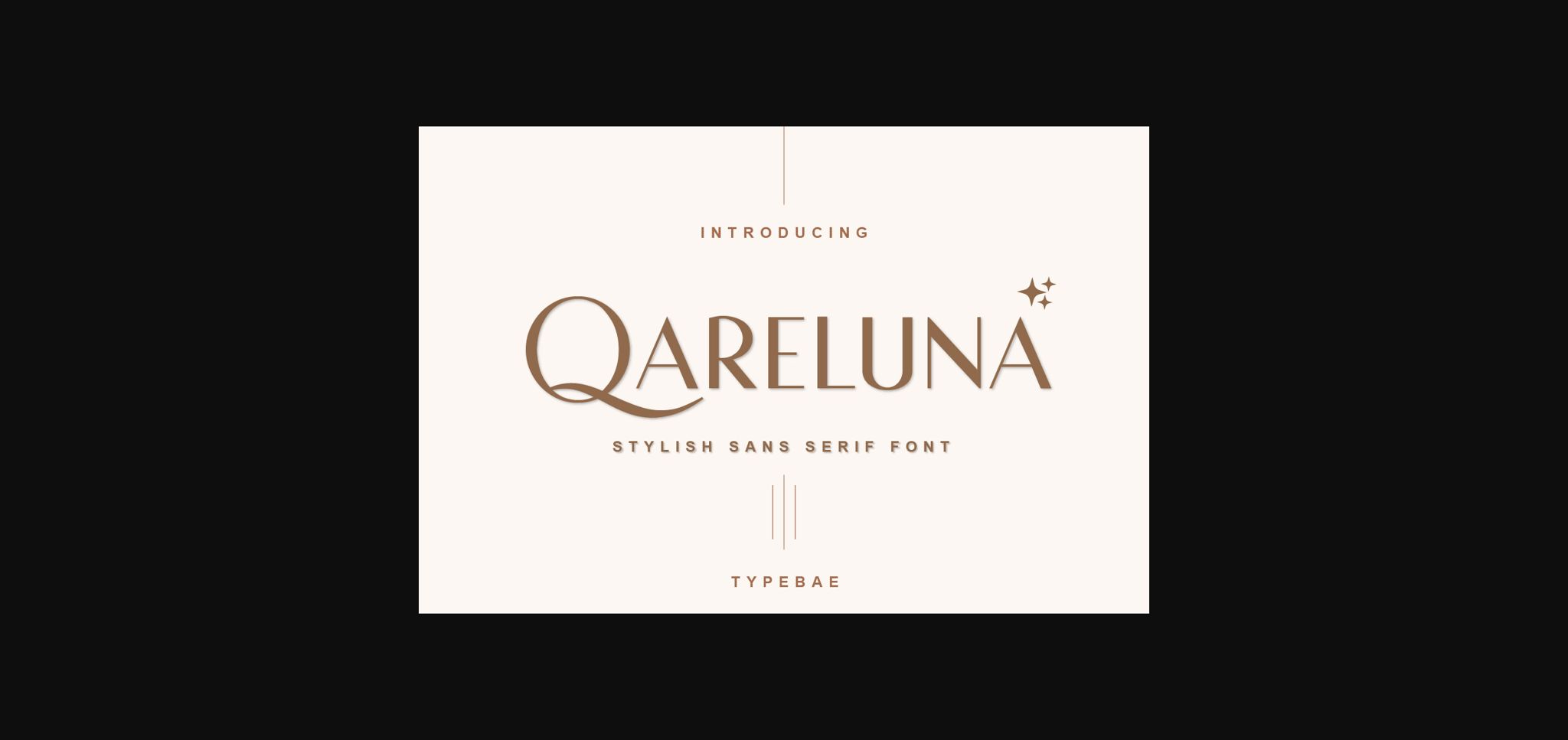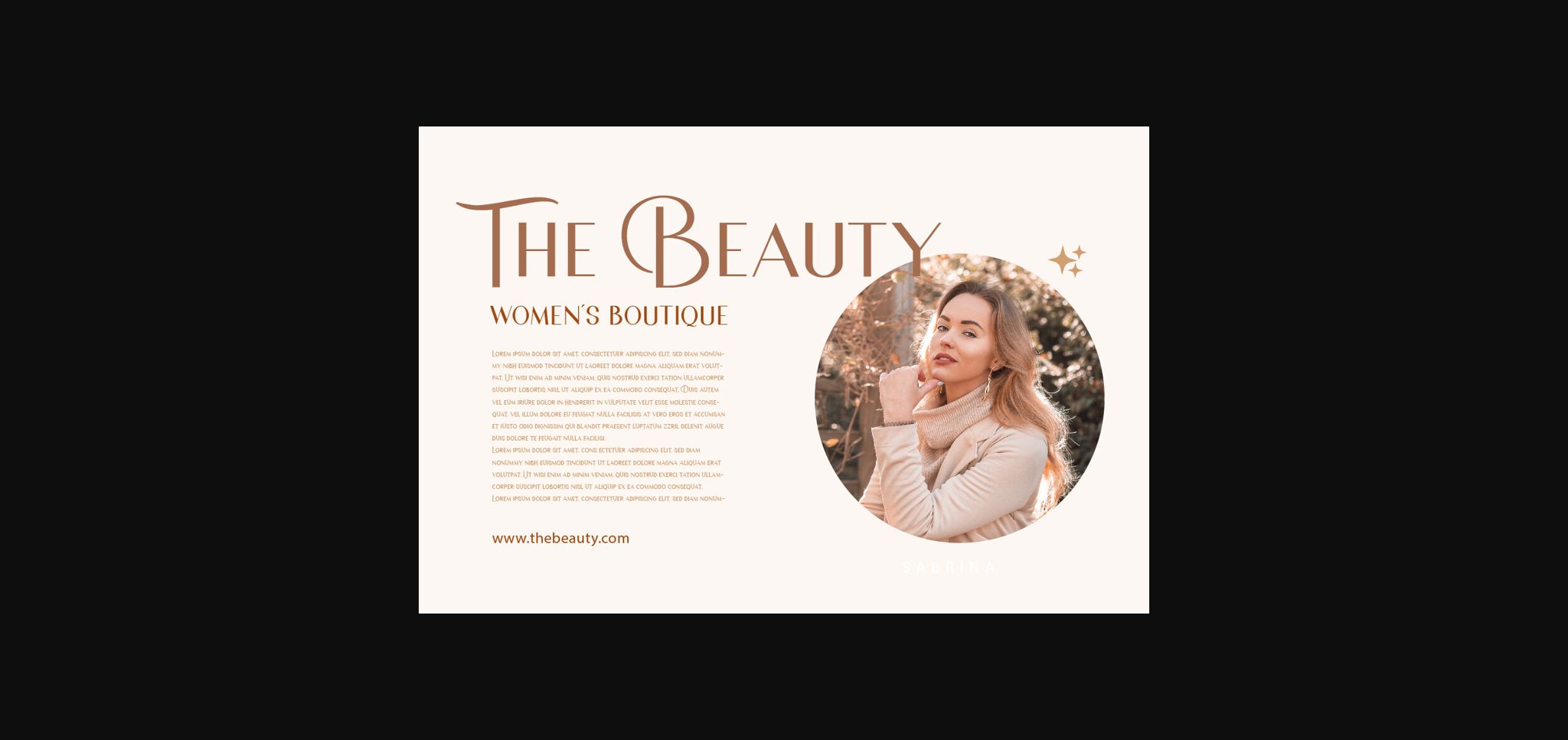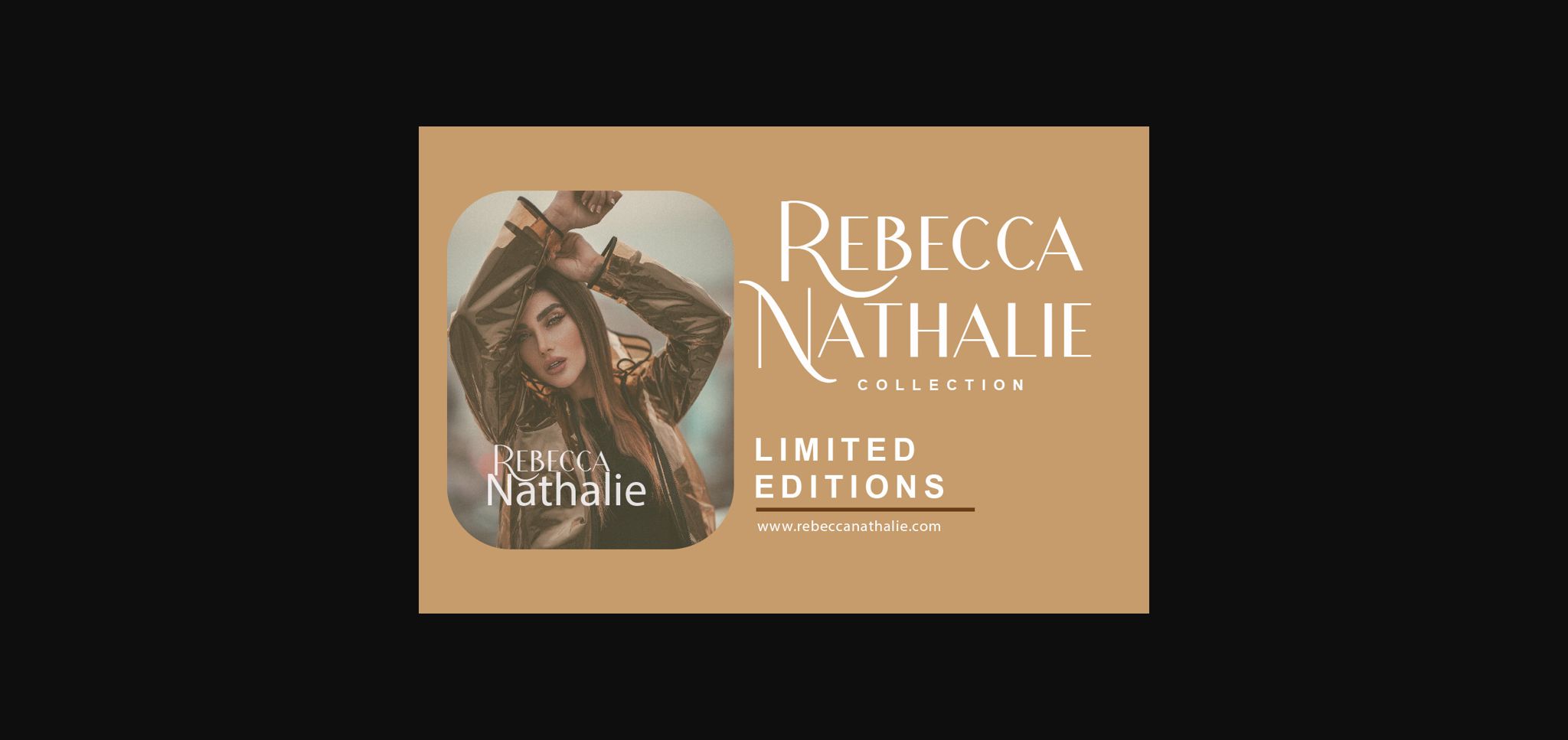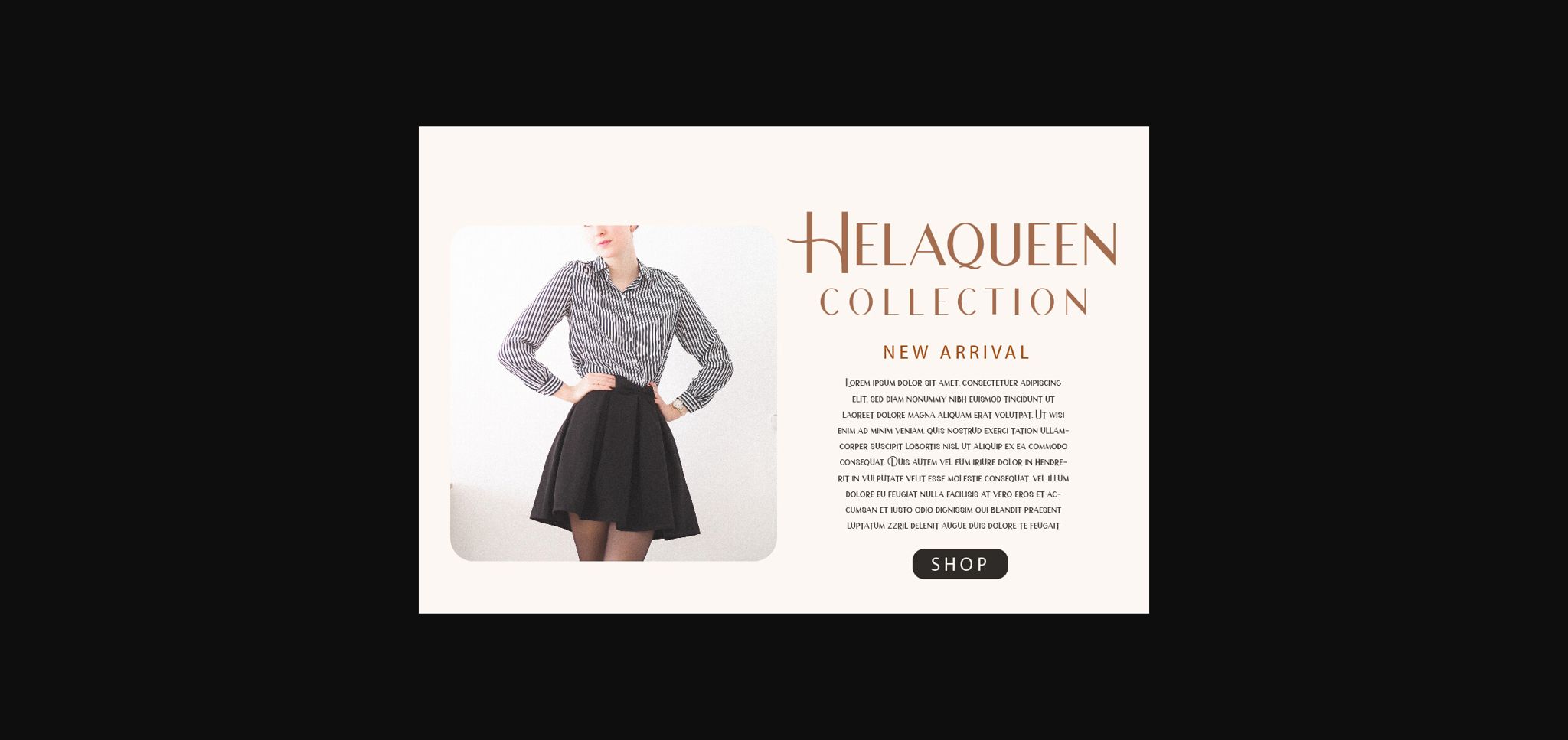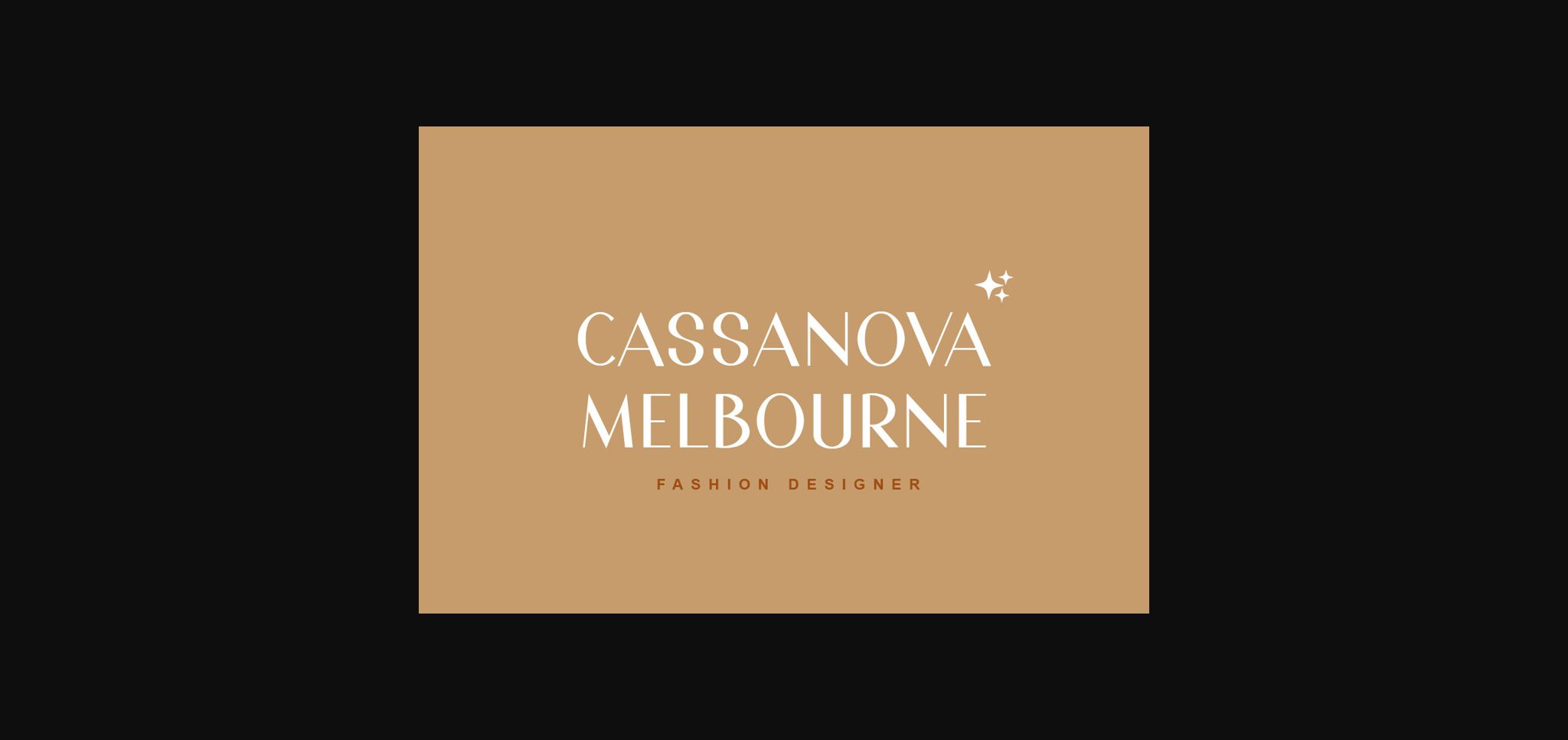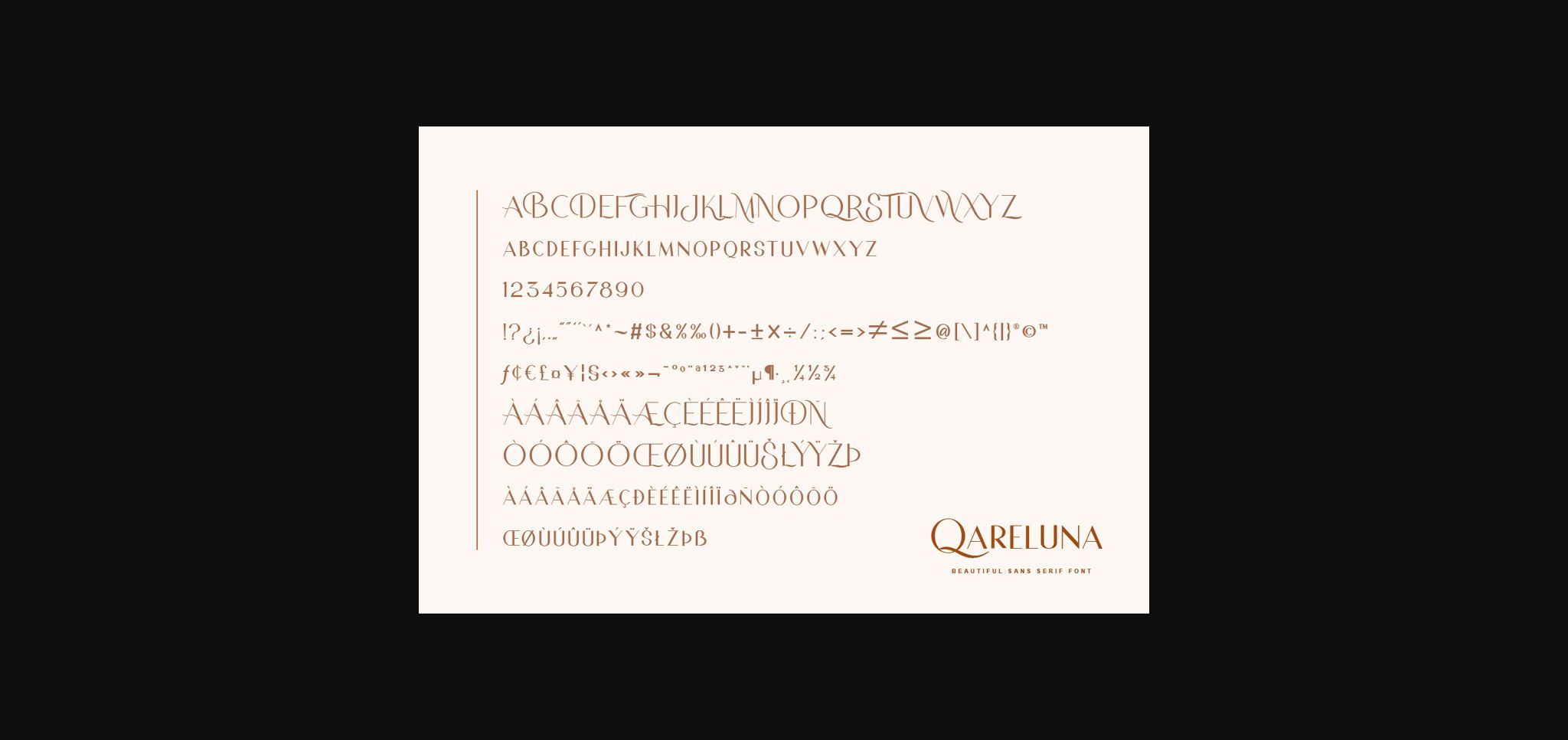
Qareluna Font
About Qareluna Font
Qareluna is a beautiful and stylish sans-serif font. Suitable to a wide variety of designs due to its neat and simple style, this font has the potential to become your favorite go-to font, no matter the occasion!